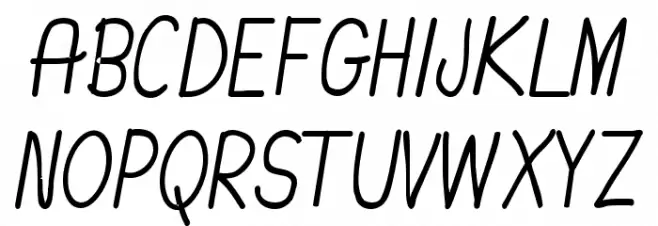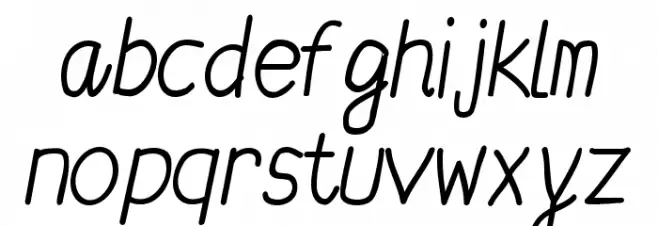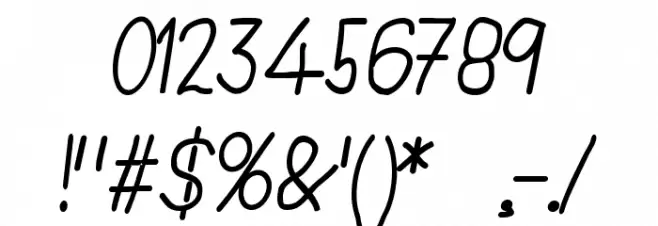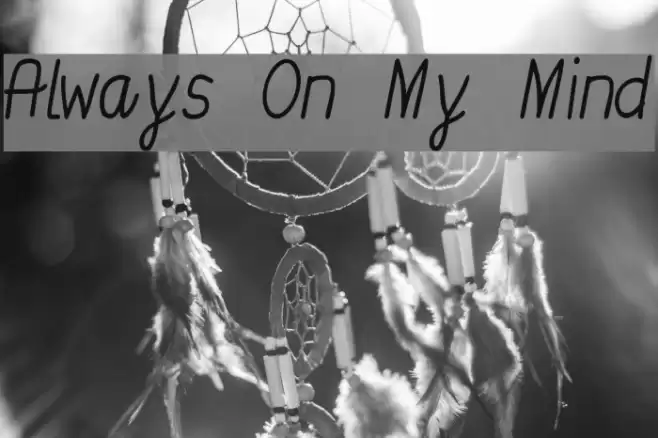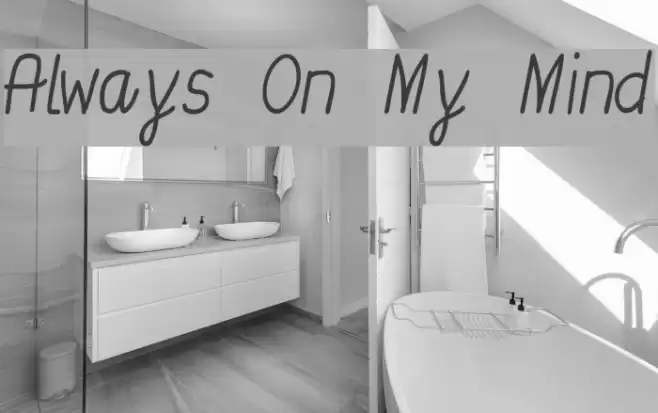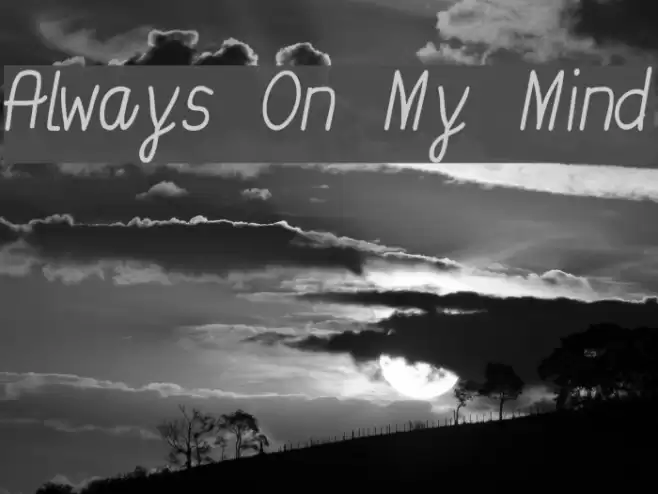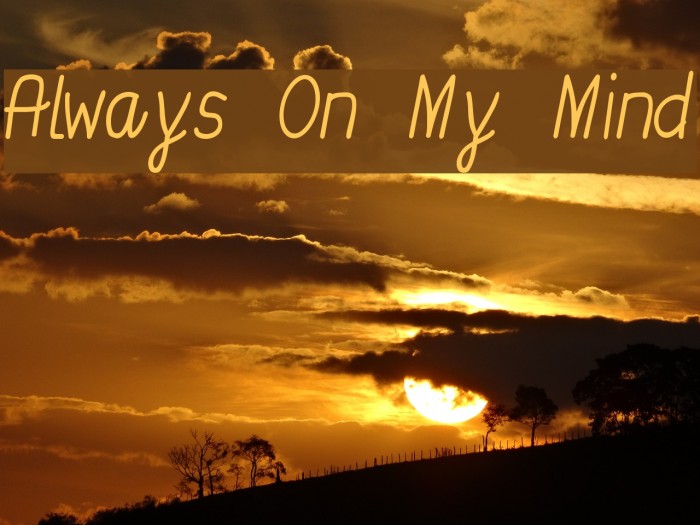
Always On My Mind
This font features a playful and casual handwritten style, characterized by its smooth, flowing lines and slightly slanted orientation. The uppercase letters are tall and narrow, while the lowercase letters maintain a consistent height, creating a harmonious balance. The numerals are clear and legible, matching the overall aesthetic of the alphabet. Special characters are included, maintaining the same whimsical style. The strokes are consistent in thickness, providing a uniform appearance across all characters. This font exudes a friendly and approachable vibe, making it suitable for informal and creative projects.
A playful, casual handwritten font with smooth, flowing lines and a slightly slanted orientation.
- Proposed Projects: Ideal for greeting cards, invitations, personal branding, and creative projects that require a friendly touch.
- Overall Style: Casual
- Use Case: Headlines, Logos, Informal Text